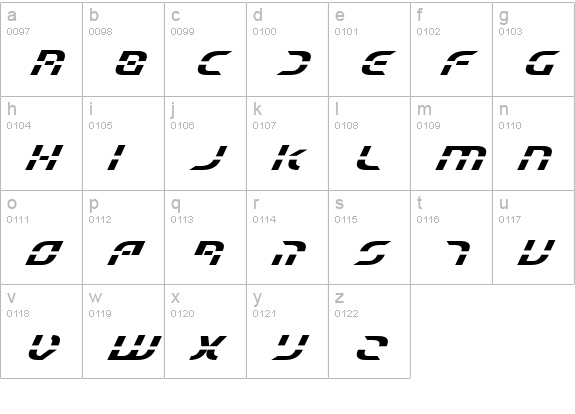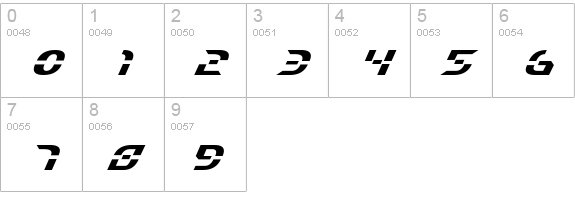
Starfighter Beta Italic is a distinctive, italic variant in the Starfighter typeface family \xE2\x80\x94 well suited to design and typography projects.
Starfighter Beta Italic is a sleek and modern font that exudes a sense of futuristic elegance. Its sharp angles and bold strokes give it a dynamic and eye-catching appearance, making it perfect for projects that demand attention. Whether you're designing a sci-fi poster, creating a tech-themed website, or crafting a cutting-edge logo, Starfighter Beta Italic will add a touch of sophistication to your work. Best of all, Starfighter Beta Italic is available for free download at FontsMarket.com. This means that you can elevate your designs without breaking the bank. Don't miss out on the opportunity to add this striking font to your collection and take your projects to the next level. Download Starfighter Beta Italic today and let your creativity soar!